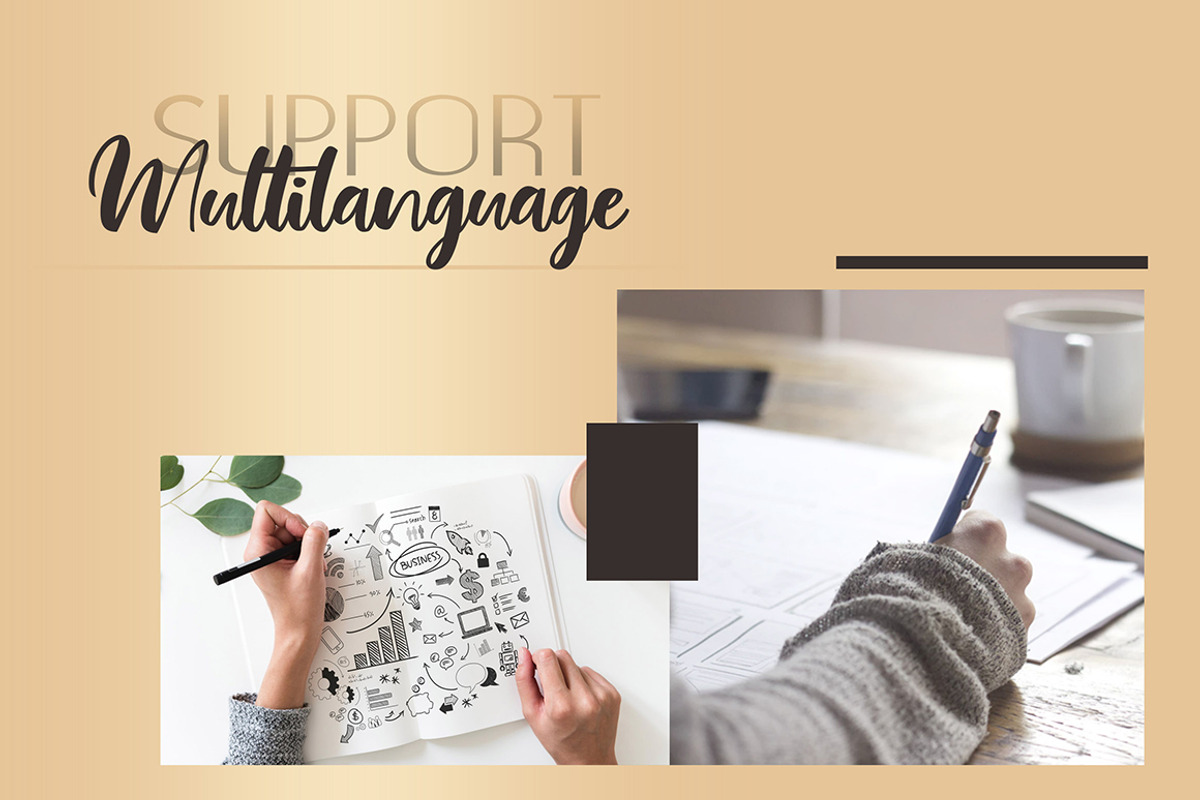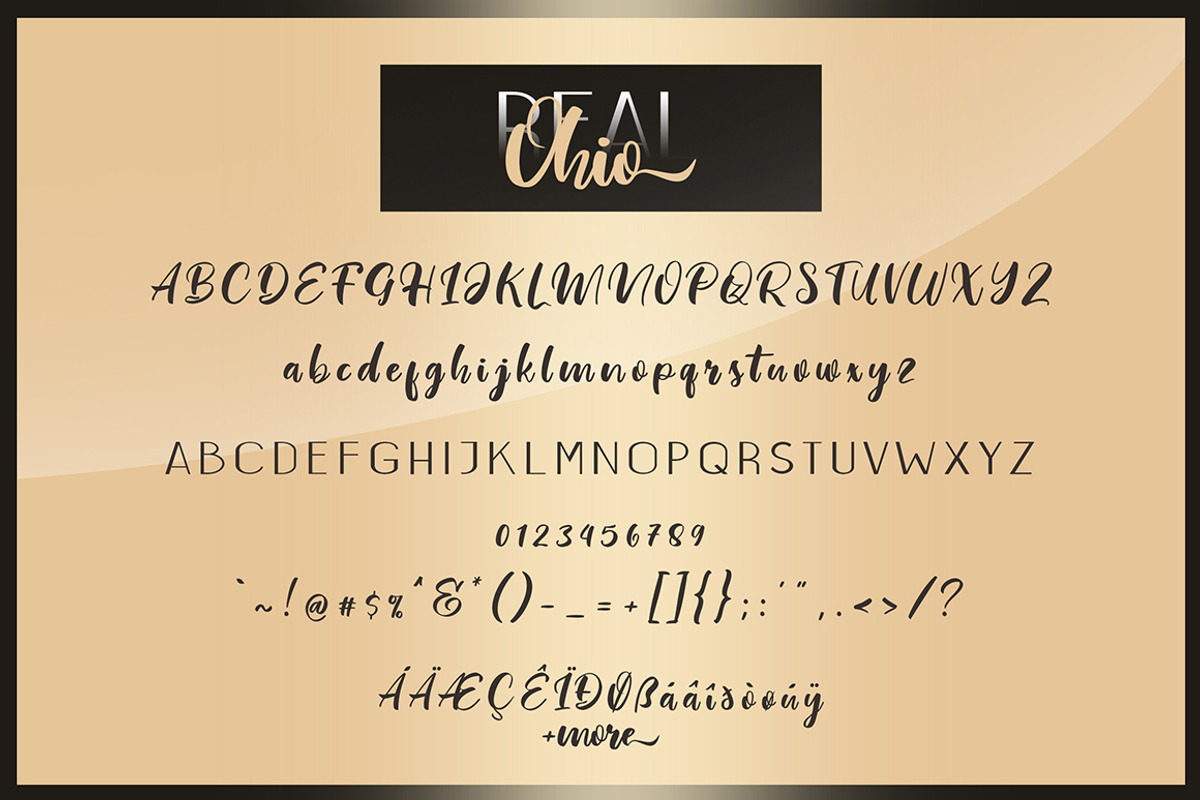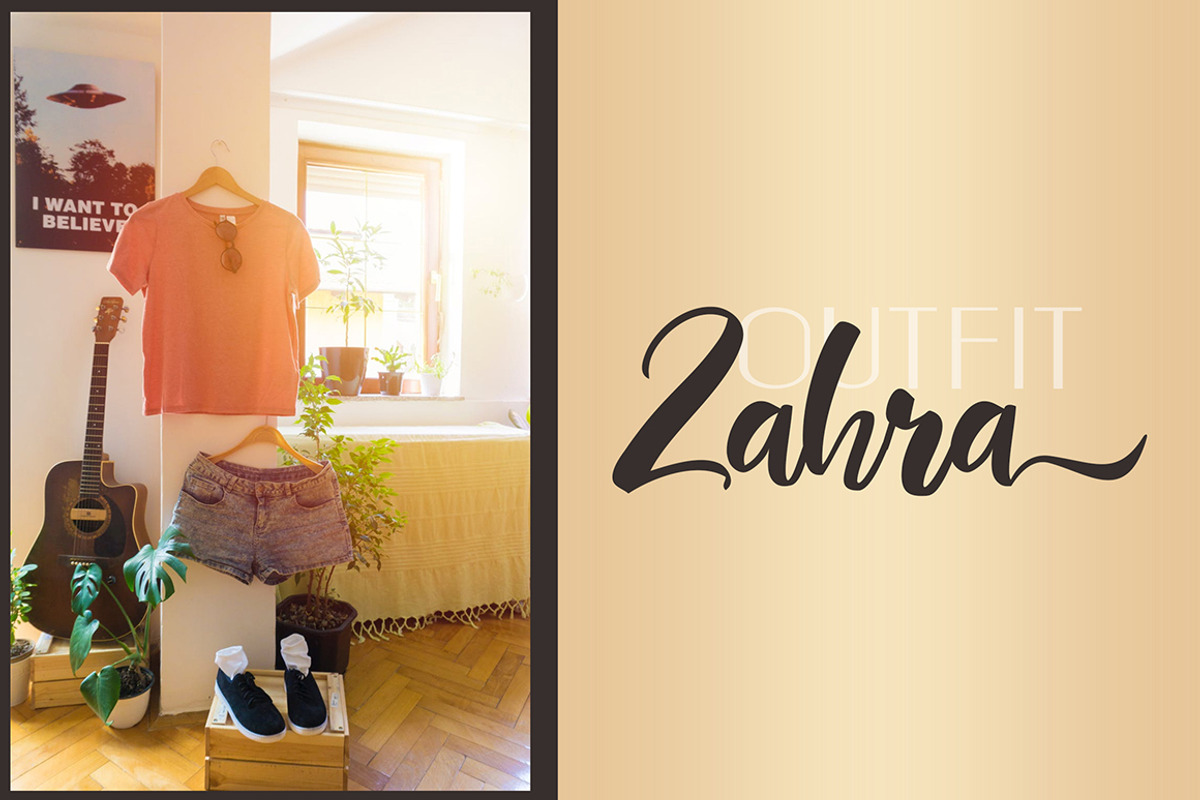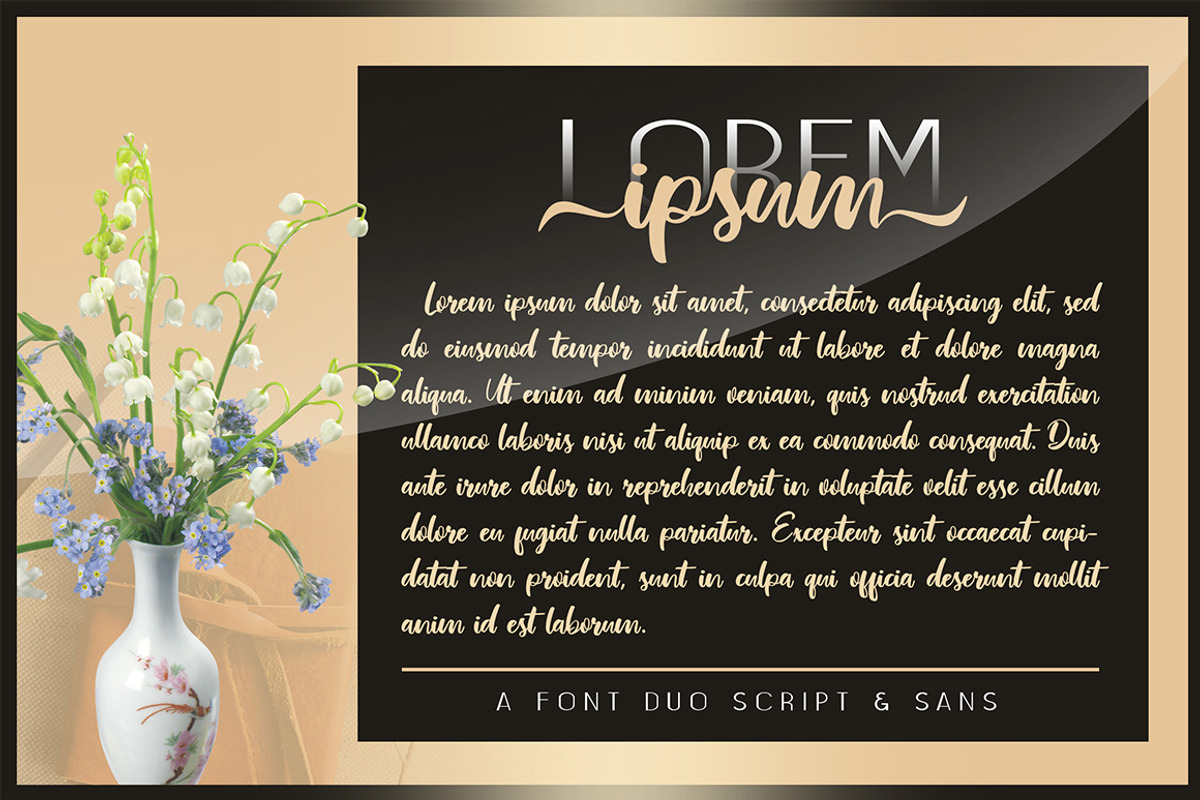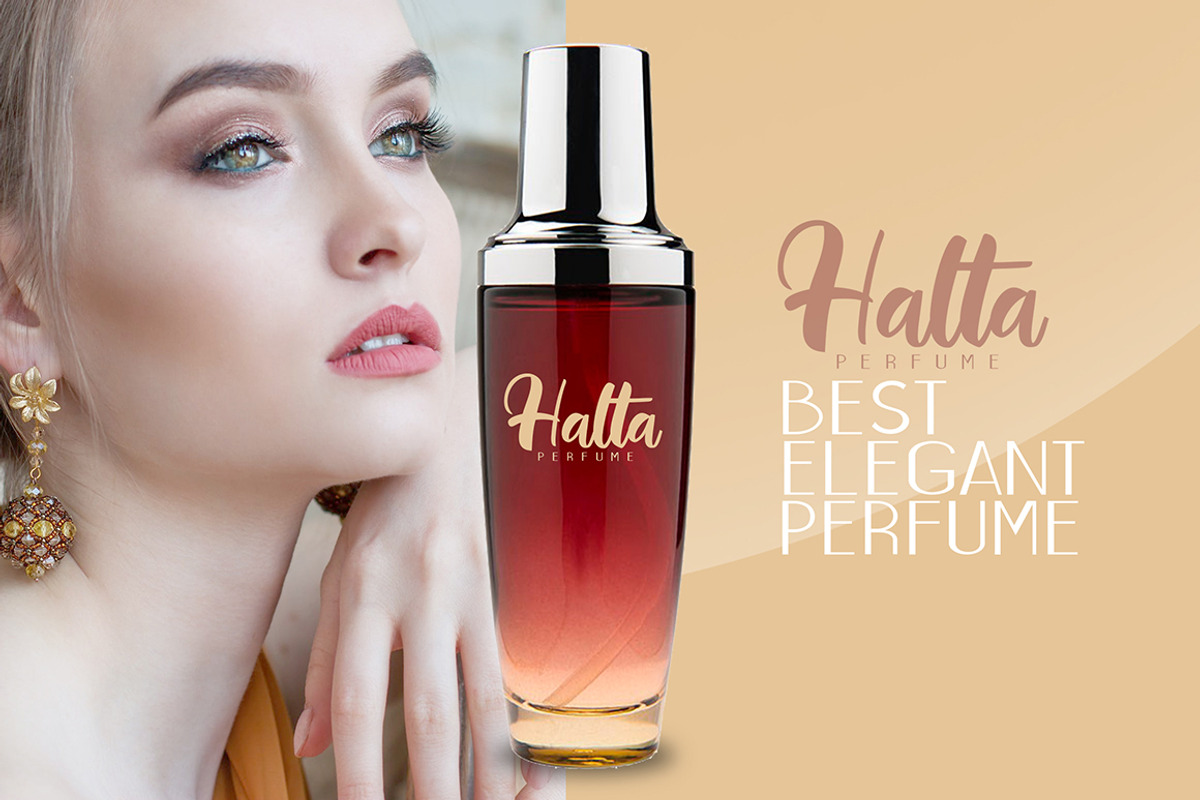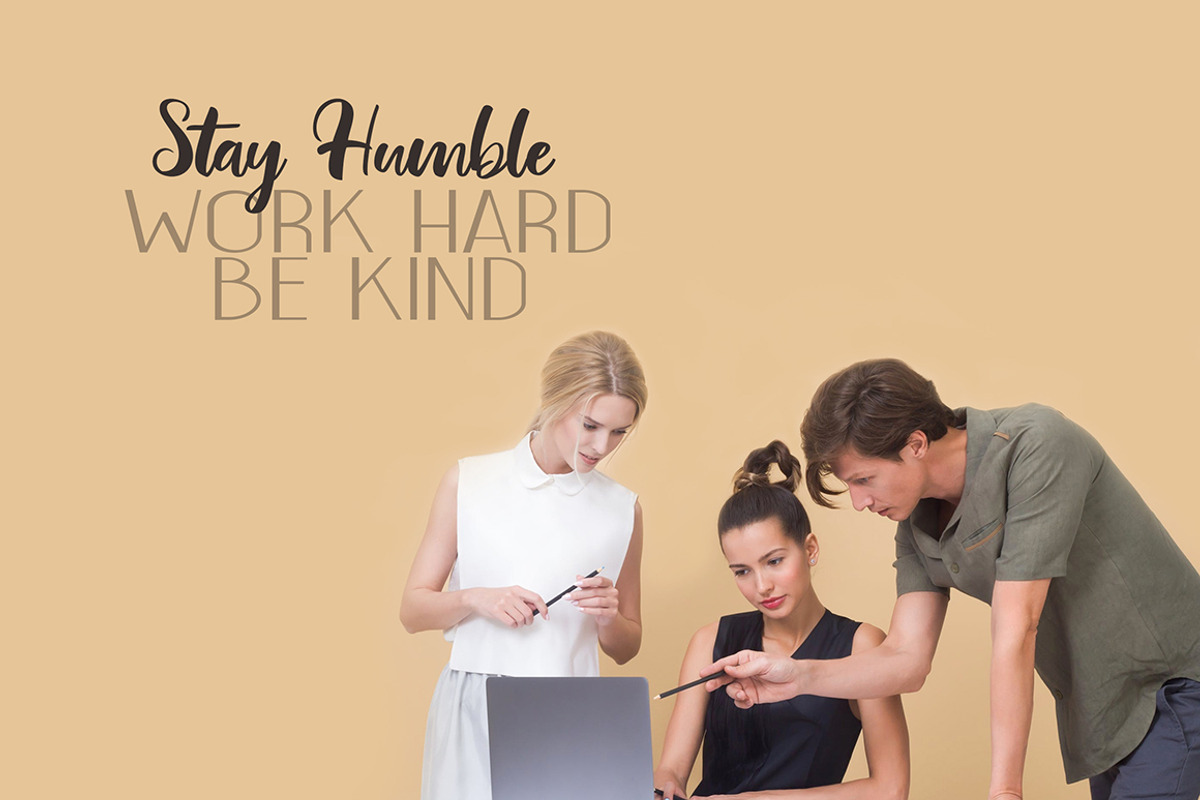
Real Ohio Font Duo
The Real Ohio Font is a fun modern script font, fresh & modern style with Real Ohio Sans font. You can combine script and sans to get amazing results. Real Ohio Font suitable for logo, branding, greeting card, poster and any design that you create.